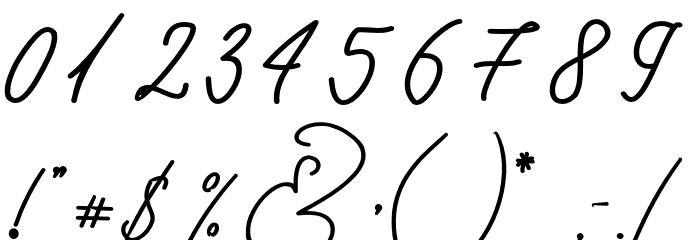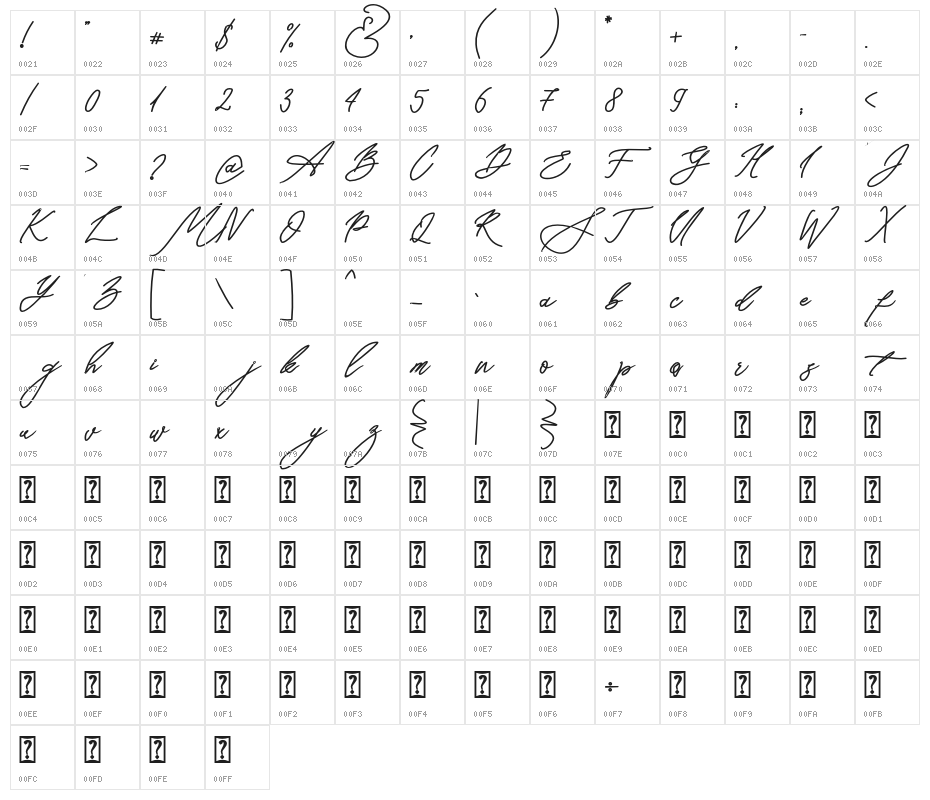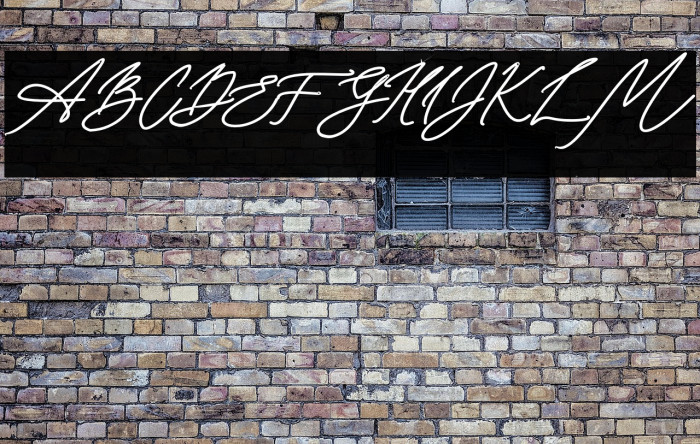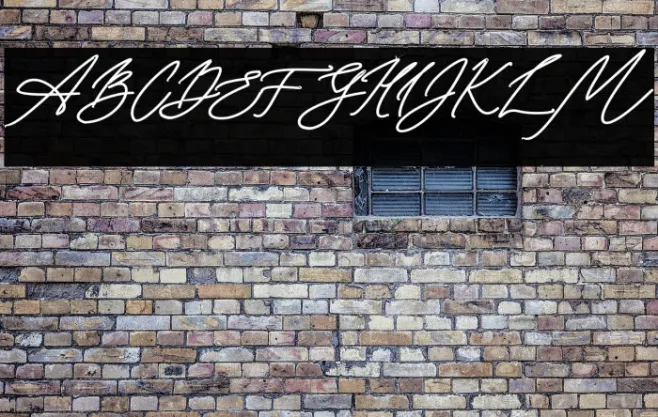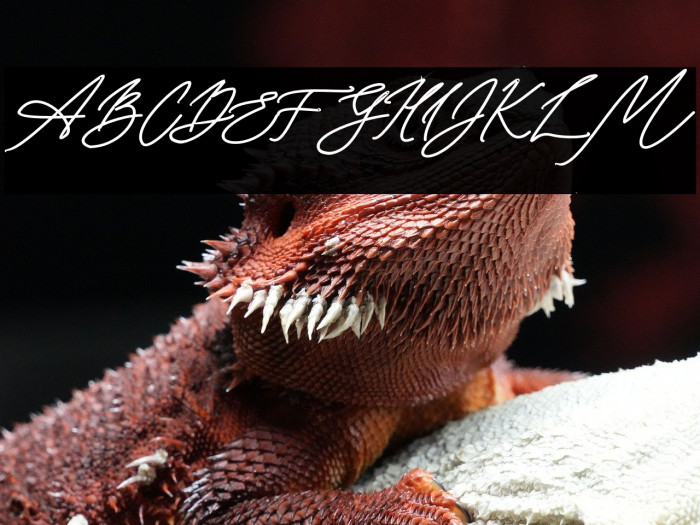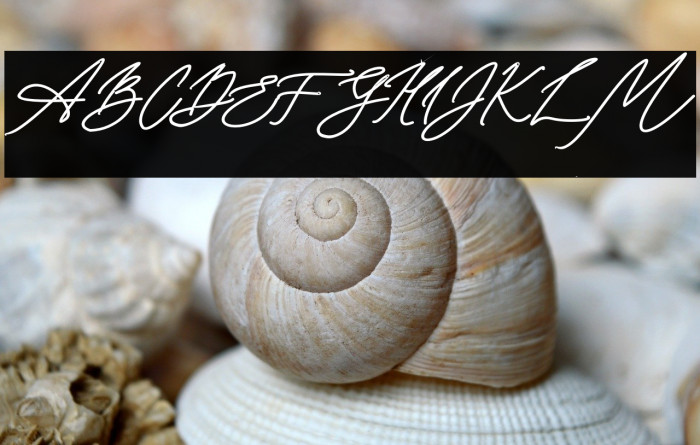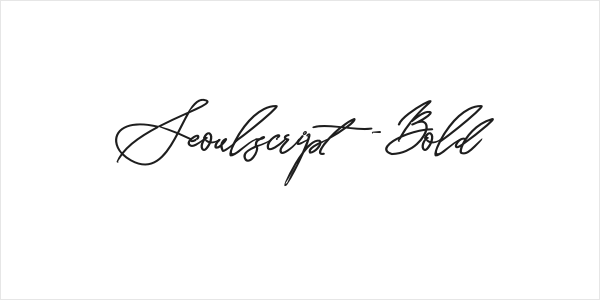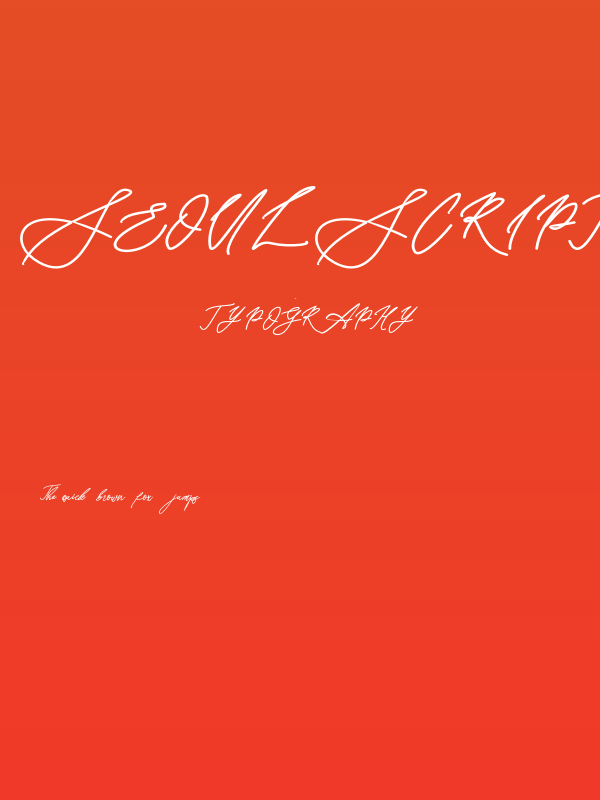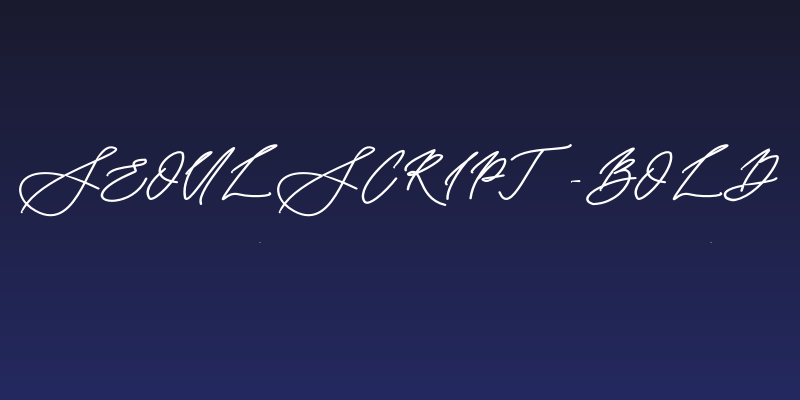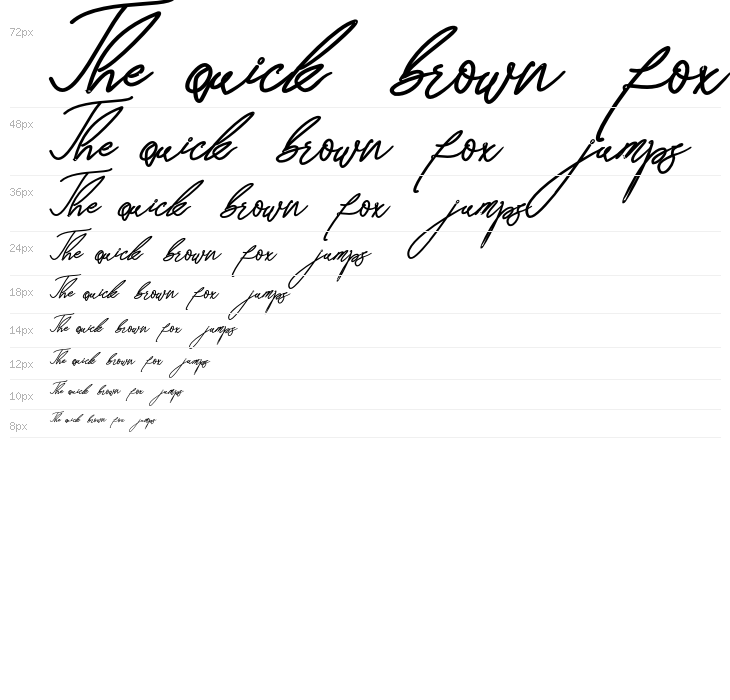
Seoulscript-Bold Font
Seoulscript-Bold Description
This font exudes elegance and sophistication with its flowing, cursive script style. The letters are intricately connected, creating a seamless and fluid appearance. Each character is crafted with a high level of detail, featuring graceful loops and swirls that enhance its decorative appeal. The uppercase letters stand tall with a slight slant, while the lowercase letters maintain a consistent flow, adding to the overall harmony of the design. The numerals and special characters are equally ornate, ensuring a cohesive look across all elements. This font is perfect for projects that require a touch of class and refinement.
Use CaseLogos, Invitations, Branding
Proposed ProjectsIdeal for wedding invitations, luxury branding, elegant stationery, and high-end product packaging.